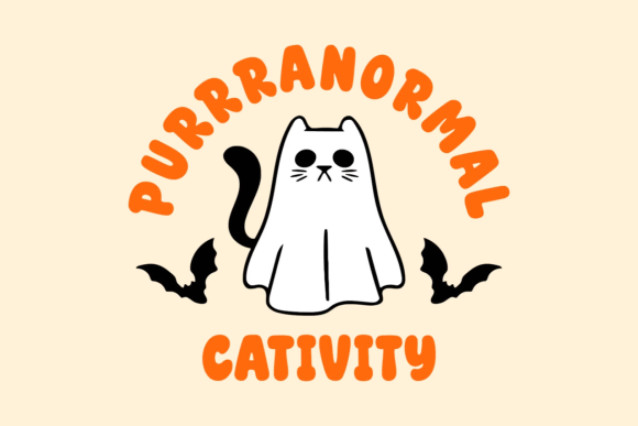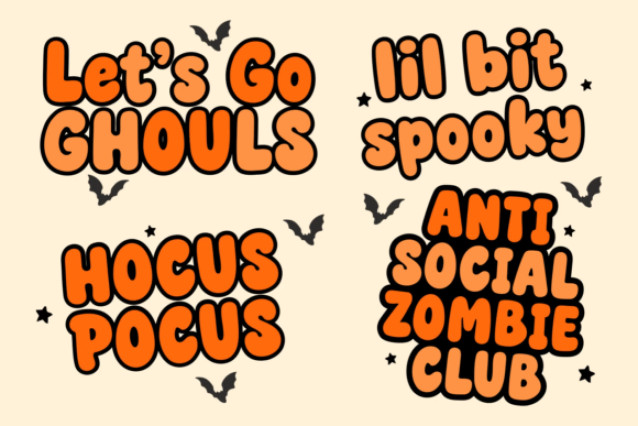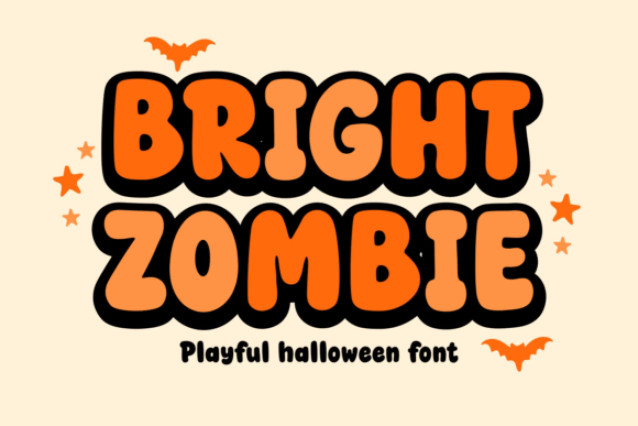
Bright Zombie is a playful Halloween display font that mixes spooky fun with cheerful energy. With bold, rounded letterforms and a bouncy design, this font brings a lively twist to the Halloween spirit—perfect for projects that want to be festive, fun, and eye-catching without being too scary.
Ideal for party invitations, trick-or-treat bags, children’s Halloween books, seasonal crafts, t-shirt designs, stickers, and social media posts, Bright Zombie font adds a charming pop to any project. Its cartoonish style makes it especially great for kid-friendly themes and cheerful seasonal branding.
Whether you’re designing for Halloween parties, spooky sales, or just want to bring a dose of playful fright to your work, Bright Zombie font will light up your designs with bold character and fun zombie vibes.